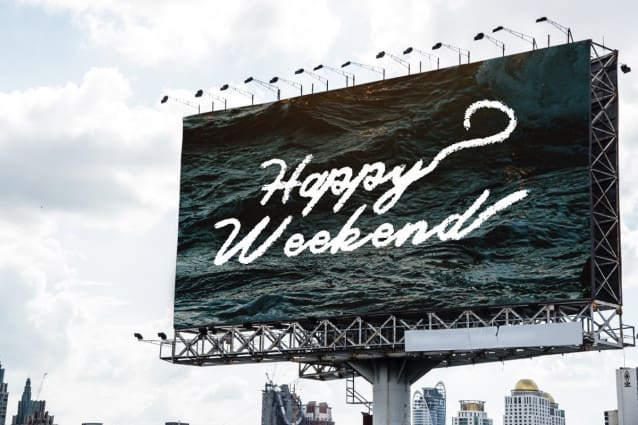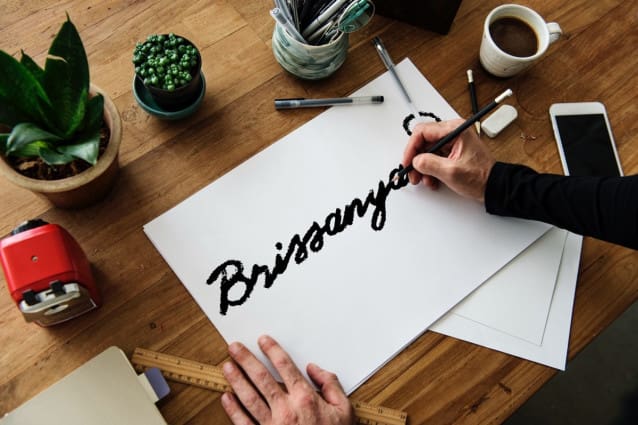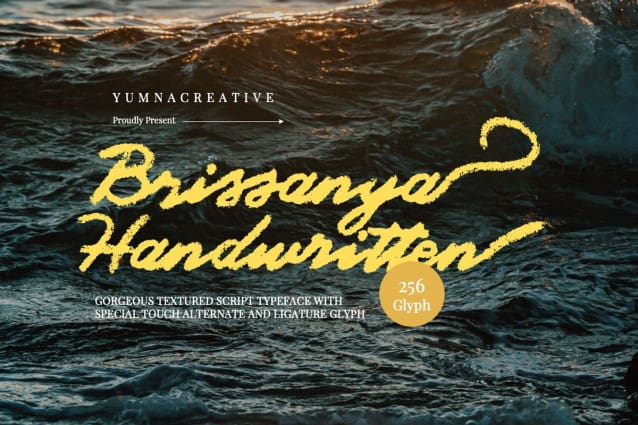
Brissanya Brush Font
Brissanya Brush Font is a hand drawn textured brush font, taking a very contemporary approach to typography. Deftly crafted, Brissanya works well together or separately; the possibilities are endless – yet stylish.